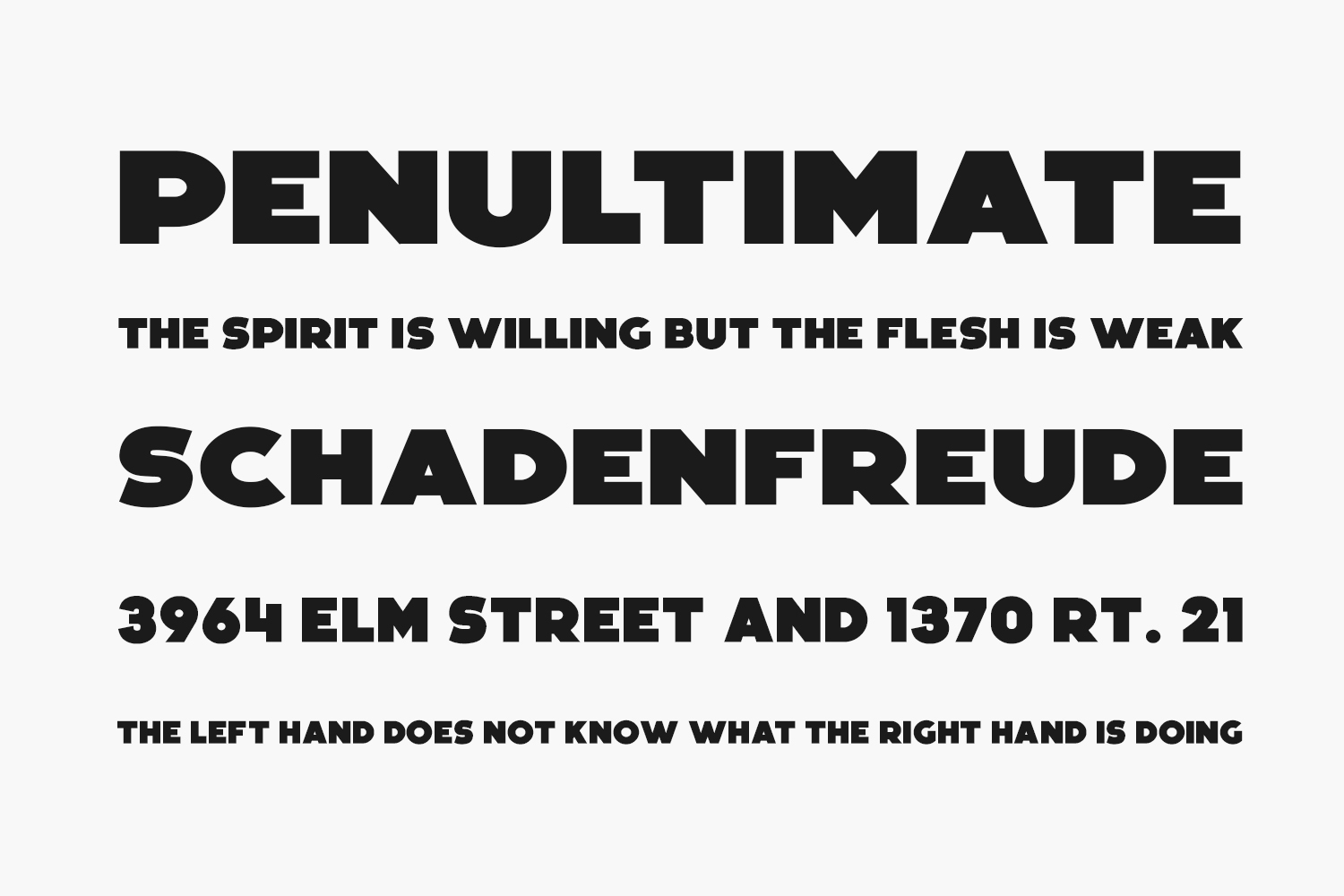
Boldfinger is a chunky geometric sans‑serif typeface designed by Imagex, featuring thick uniform strokes and clear, bold letterforms. Inspired by industrial and street‑sign typography, it’s perfect for attention-grabbing headlines, posters, banners, logos, children’s designs, and editorial layouts. The TTF file is free for personal use; commercial licensing requires contacting the designer.
- Impactful Geometry: Bold, chunky characters built on geometric shapes for clarity and strength.
- Display-Ready: Ideal for large headings, banners, and posters due to its strong visual presence.
- Simple & Versatile: A single-style TTF file works well across all major design tools and platforms.
- Wide Latin Support: Covers Basic Latin, Latin-1, and supports ~37 Latin-based languages including English, French, Spanish, Swahili, Cebuano, and more.
- Posters & Flyers: Bold headlines that command attention in events, promotions, and campaigns.
- Branding & Logos: Creates memorable identity for playful, modern, or youthful brands.
- Kids & Educational Designs: Fun, approachable typography for children’s books, apps, and classroom materials.
- Editorial Headlines: Great for magazine covers, article headers, or feature spreads.
- Digital Graphics: Attention-grabbing type for social media, YouTube thumbnails, TikTok banners, or website hero sections.
Use at large sizes (≥36 pt) with wide tracking (20–40) for maximum impact. Pair it with minimalist sans‑serifs like Montserrat or Roboto to balance bold weight. Try vibrant color palettes or textured backgrounds—like kraft paper or urban concrete—to amplify its raw, industrial feel.
- Glyphs: 239 glyphs including uppercase A–Z, numerals, punctuation, and Basic Latin/Latin-1 characters.
- Language Support: English and ~36 other Latin-based languages (e.g., French, Spanish, Swahili, Cebuano, Italian).
Designed by Imagex